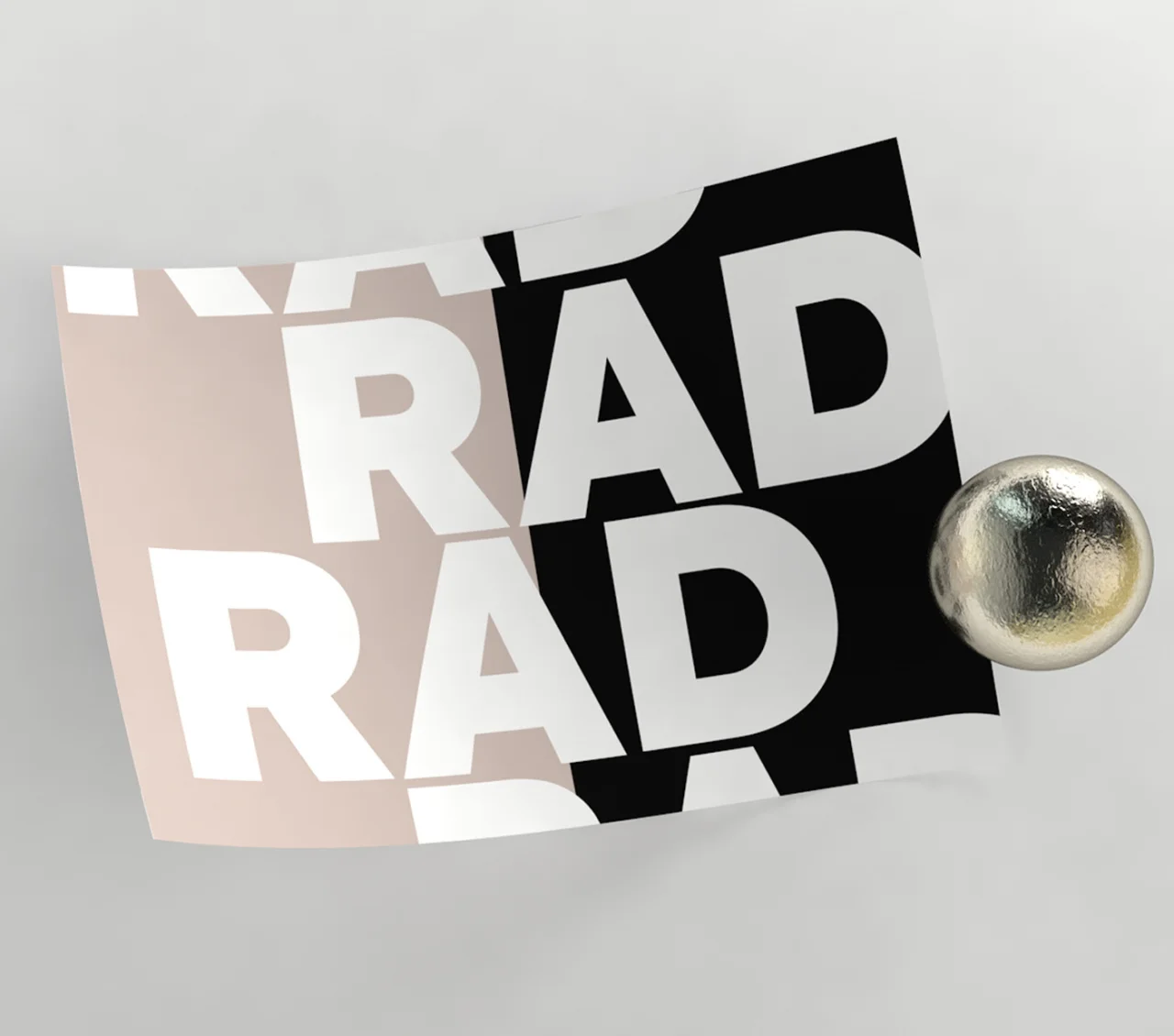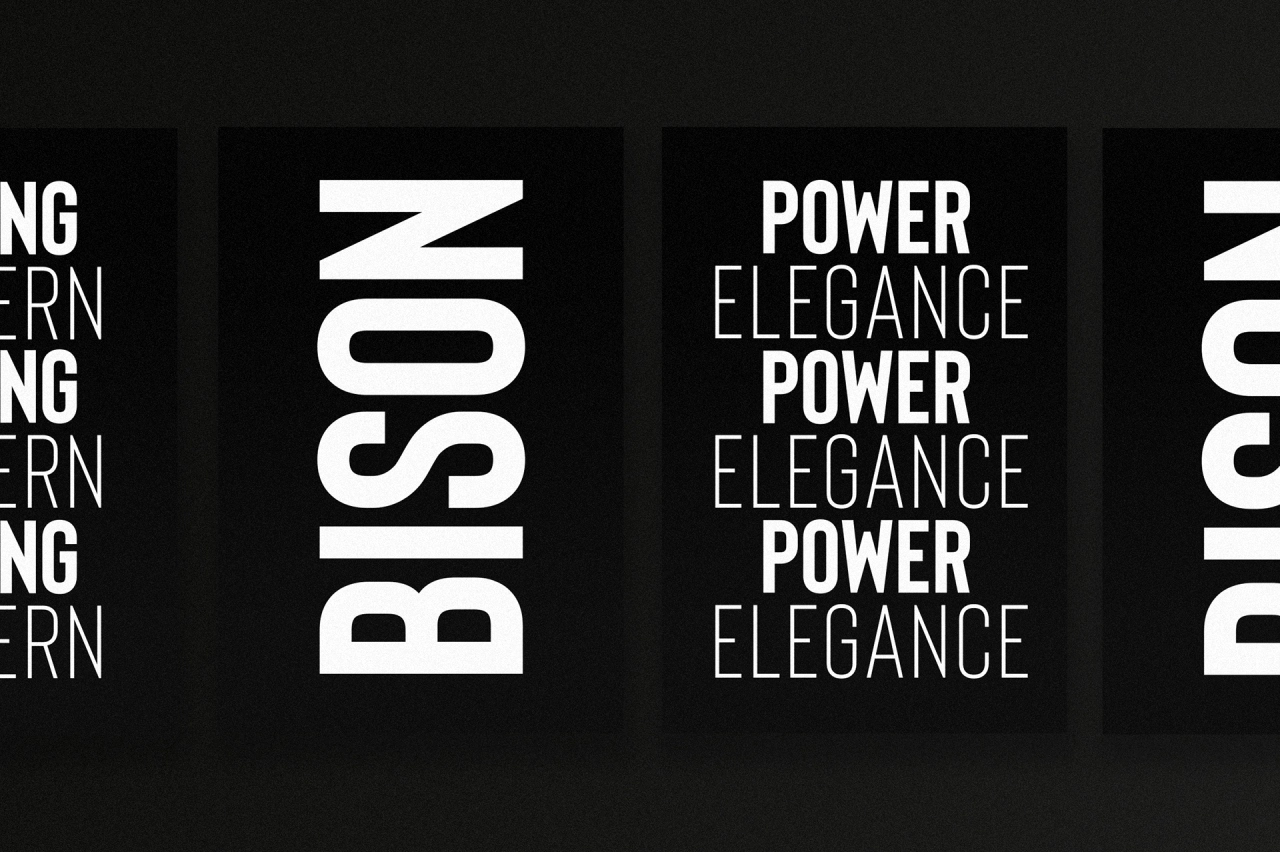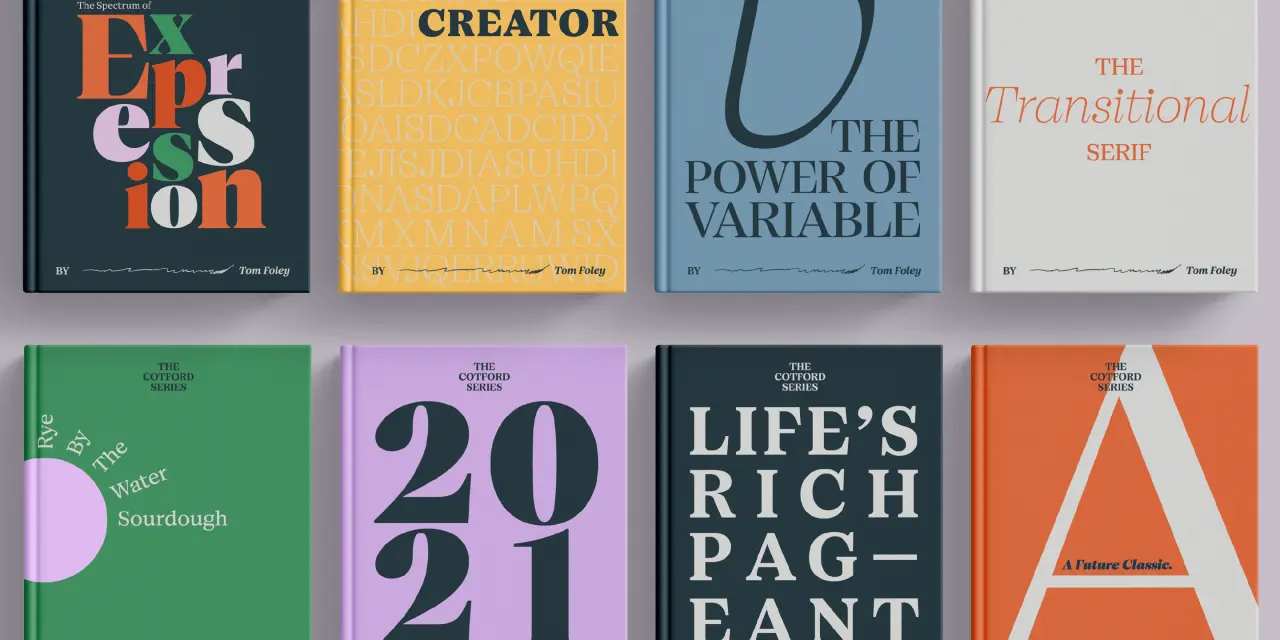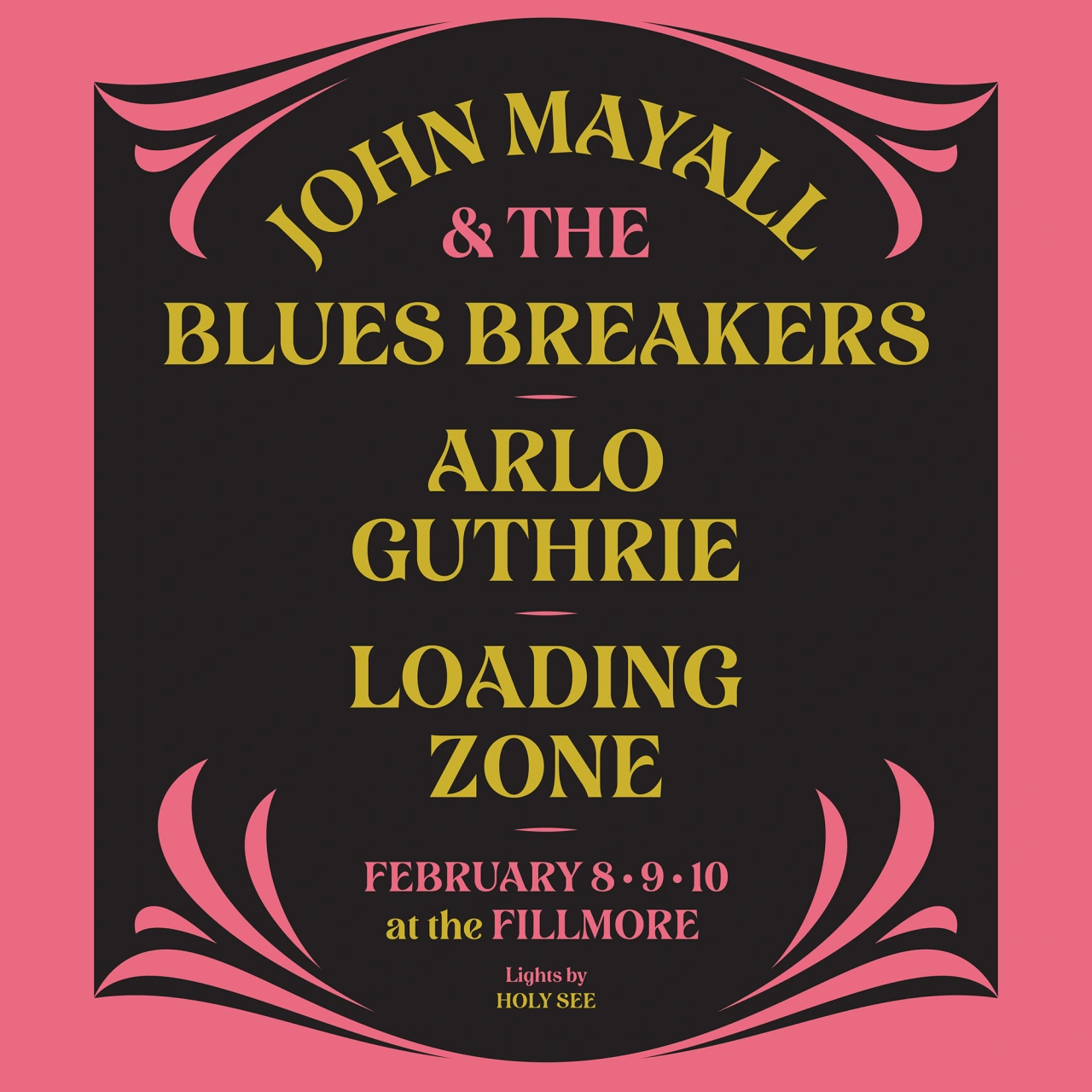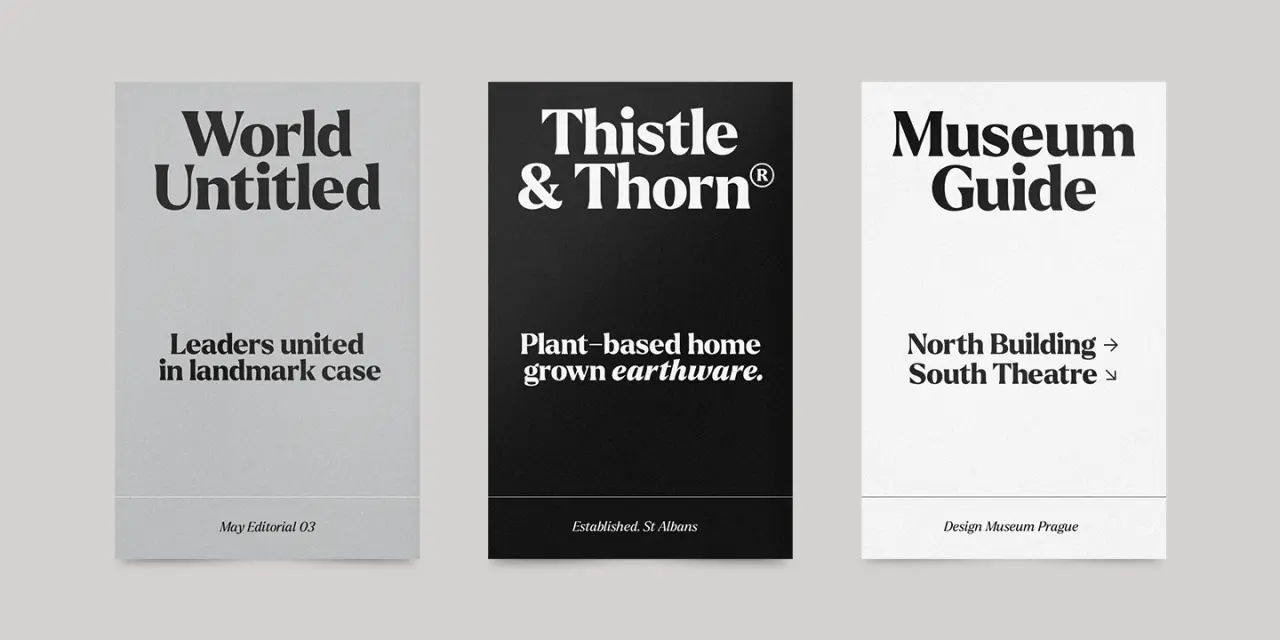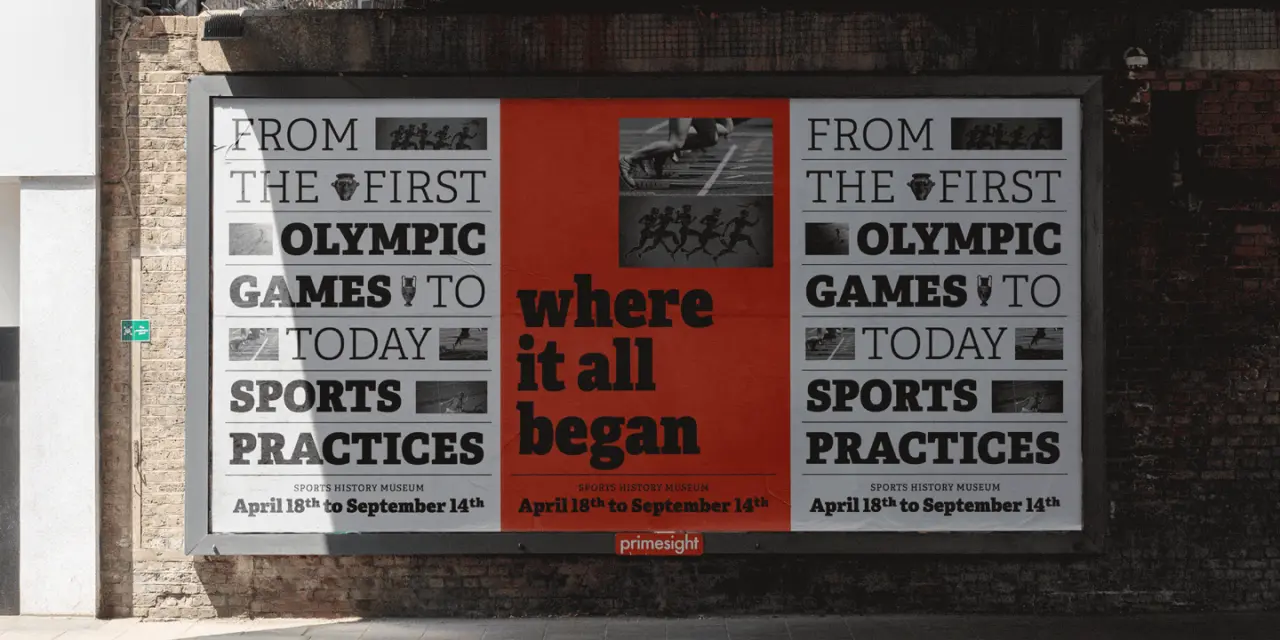
36 fonts that will be popular with designers in 2022
It's been a crazy two years. We've been so caught up in how the pandemic's affected the way we work and our lives in general, it's easy to have missed some of the smaller stuff, like how typography has evolved quite dramatically.
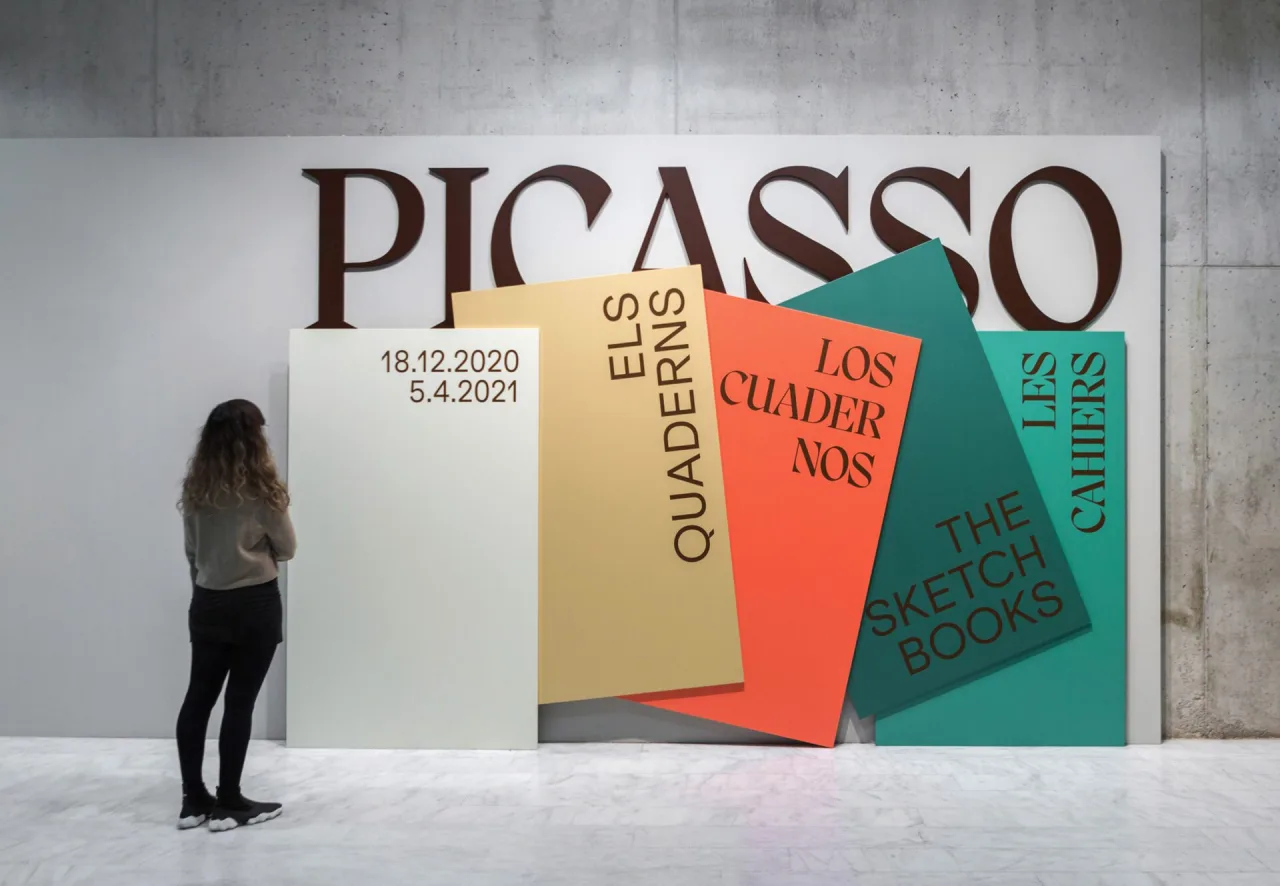
Work by Ara Estudio for Museu Picasso using Pangram Pangram's Migra
We're now seeing sharp and exaggerated characters everywhere, alongside an ongoing return to the comfort and familiarity of retro fonts, such as 1970s serifs. Besides that, there have been lots of fun new font releases to help take our minds off recent world events.
But now, as we emerge from lockdown, what's the next step for typography in 2021?
Right now, maximalism and creativity are being pushed to their limits. And we're expecting retro styles to continue to play their part, alongside a growing art nouveau trend and a resurgence of 1990s fonts. But as we try to forget the misery of the last two years, we expect a lot of future-facing, groundbreaking type designs to be coming our way too.
Font trends for 2022
Environmental concerns will be frontline, certainly. "I'd like to think there'll be more awareness of fonts that save ink and therefore carbon like Ryman's Eco font in print," says designer Berenice Smith. She's also hoping for "more rounded sans to improve legibility; a less is more digital approach, again to reduce effort and therefore carbon load."
There's also growing awareness for accessibility, which means that hopefully, typography will focus more on more making legibility and readability a priority.
"One of the biggest drives in graphic design for next year and beyond will be inclusivity," believes Christy Davies, design director at Echo. "An example in typography is how a classic font such as Futura had adapted its form, making it more accessible and usable as Futura Now.
"With our ageing population and their degrading eyesight, we need to act now," she adds. "Fonts selected will need to be legible for those with sight issues, particularly when considering how packaging can be seen from the shop shelf."
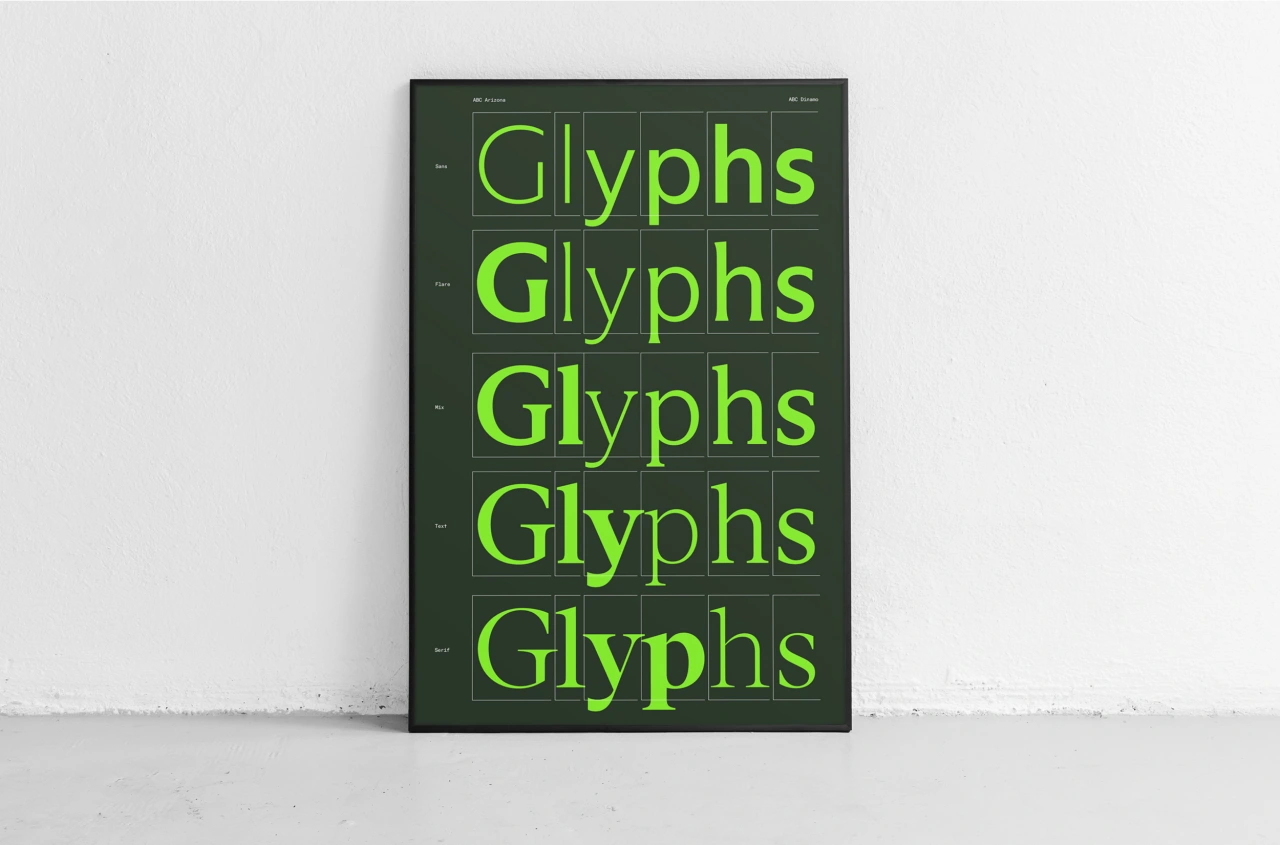
Glyphs by Mucca
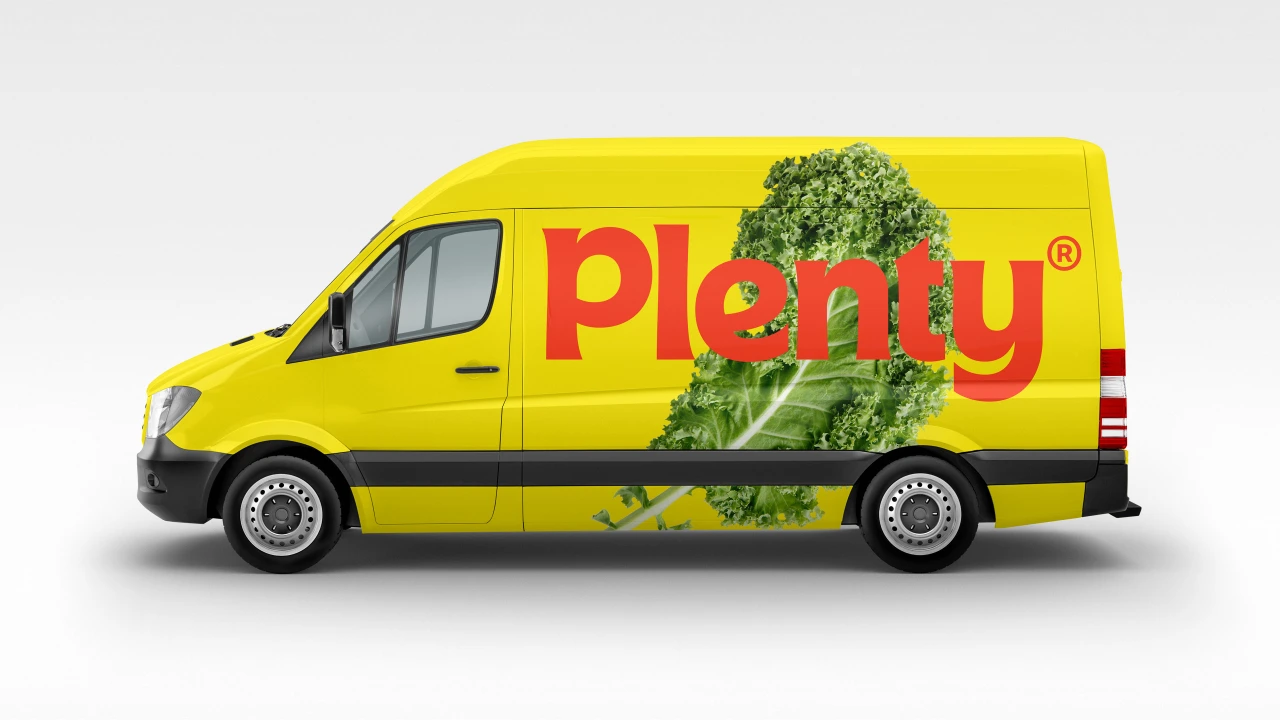
Plenty by &Walsh
The rise of custom fonts
More broadly, Matteo Bologna, founder and president at Mucca, believes custom fonts will be big news in 2022.
"More and more brands are discovering that a custom font can communicate as powerfully and effectively as other visual tools," he says. "Each font speaks with a certain tone of voice and communicates specific values, and a custom font can express nuances that an off-the-shelf font cannot while serving to differentiate a brand in a crowded marketplace.
"Companies like Plenty, a vertical farming brand designed by &Walsh, has a custom font with an approachable, organic sensibility, while Footlocker recently introduced Foot Locker Sans by F37 to build on the equity of its heritage."
Software innovation is also driving this trend. Newly launched font design software Glyphs 3 (recently rebranded by Matteo Bologna and Andrea Trabucco-Campos) makes designing custom fonts more intuitive and accessible for designers who haven't created fonts before.
"The power of the software is also driving another design trend: variable fonts," Matteo adds. "Now designers aren't limited to sans or serif, condensed or extended. They can use a single typeface with all these characteristics to create richer, more customised experiences. In fact, the website for Glyphs was designed with a newly launched variable typeface Arizona, by ABC Dinamo, that showcases both the functionality of the software and the versatility of the font."
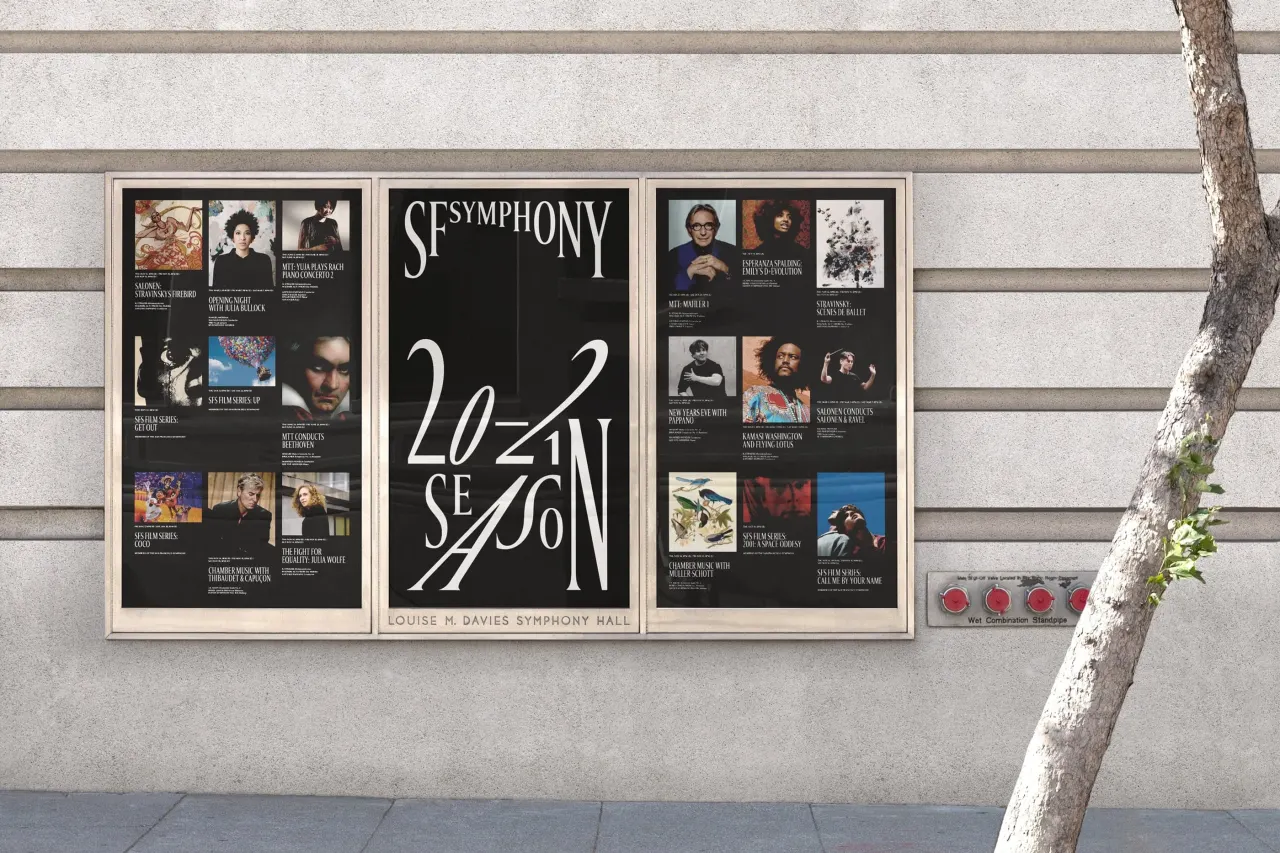
A customised Arizona by ABC Dinamo for COLLINS / San Francisco Symphony
Dialling down the crazy
That said, Samantha Barbagiovani, design director at ThoughtMatter, believes that some of the wilder type designs of the 2020s so far will start to take a back seat.
"The experimental and almost non-designed-designed letterforms we've seen over the past two years – in part thanks to Gen-Z and in part living a surreal life facilitated through screens – will simmer down," she predicts. "We'll see typefaces with solid foundations and purposeful optimisations support brands: think Muoto or CoFo Sans [number 7 on our list below]".
So with all that in mind, here are 36 fonts we'd recommend checking out for 2022. These top typefaces will help you future-proof your designs and help you stay bang on-trend.
Sans Serif fonts
1. Axiforma
Axiforma is a geometric sans-serif font family designed and published by Galin Kastelov. Based on a robust sans-serif typeface, it comes in 20 weights plus matching Italics for each weight. It includes numerous OpenType features such as old-style numbers, fractions, case sensitive alternates, localised forms, stylistic sets. Recommended for branding, posters, headlines, display, presentation materials, websites and logotypes, Axiforma is a paid-for font and should not be confused with the similarly named Axiforma Free Font.